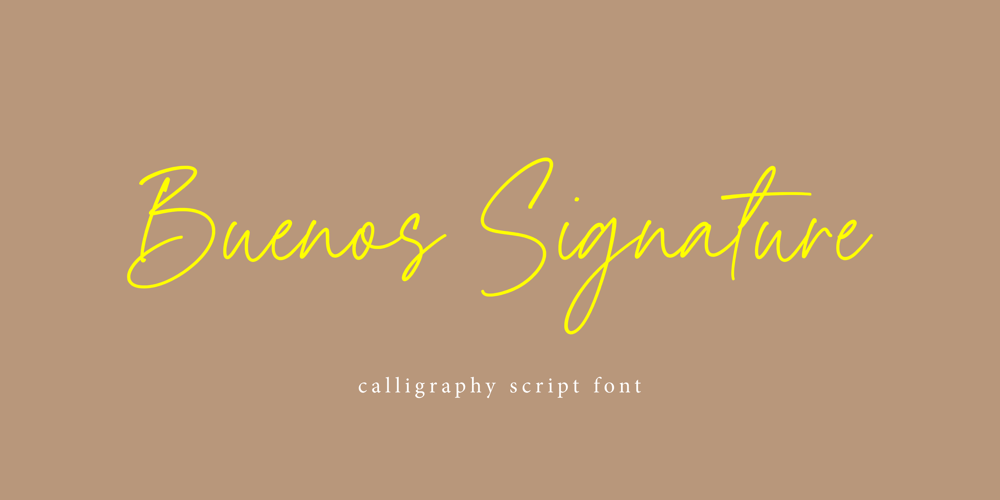
Buenos Signature
Buenos Signature font
Buenos Signature Font Family was designed by Restu Angga and published by Balpirick. Buenos Signature contains 1 styles and family package options. Buenos Signature – a beautiful monoline script that’s clean, elegant and perfect for a range of design projects! With its smooth, effortless lines and understated sophistication, this font is the perfect choice for those who want a modern look that’s still timeless in its appeal.Crafted with precision and care, this font is incredibly versatile and can be used for a range of design projects, including logos, branding, invitations, packaging, and more. With its simple yet refined aesthetic, it’s sure to make a lasting impression on anyone who sees it. – also multilingual supportEnjoy the font! Feel free to comment or feedback!Thank you!